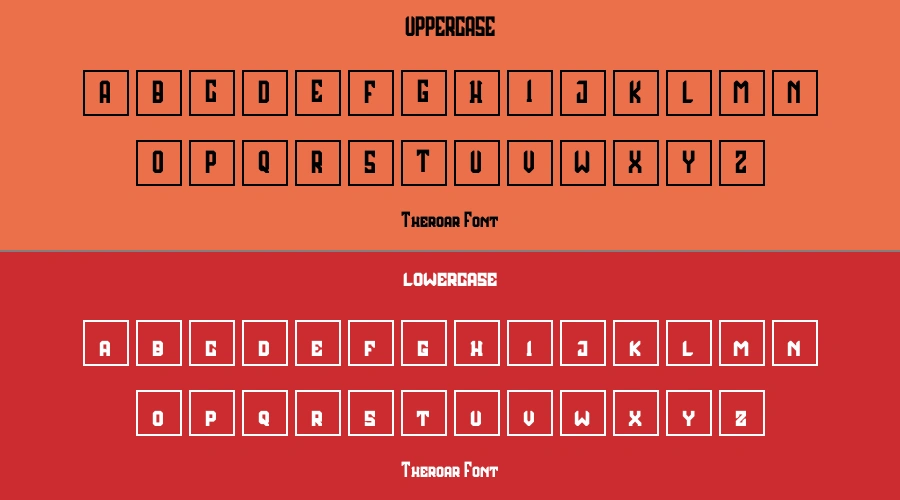
About Theroar Font
Theroar Font represents a sophisticated approach to type design, balancing assertive angles with operational efficiency. Perfect for presentation decks, this font family showcases impressive accuracy and user trust throughout its character set. Designers appreciate its versatility and reliability.
Designers will appreciate nuanced touches including tapered strokes and subscript/superscript, adding sophistication to any project. These features become apparent in sidebars, where small text rendering matters most. The careful treatment of character width and technical authority ensures optimal performance.